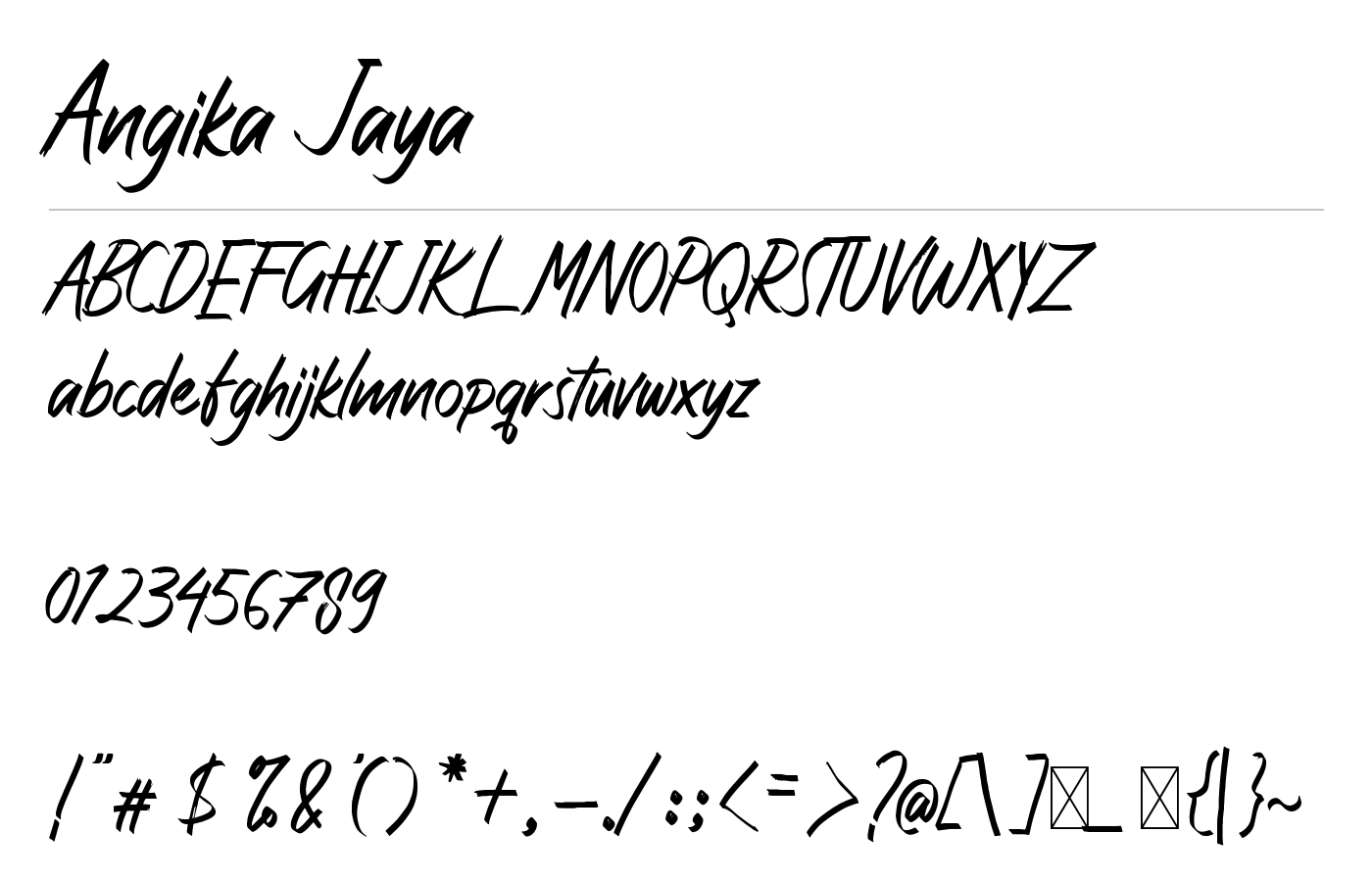
Angika Jaya is a lively and expressive script font that mimics natural handwriting with its sharp, slightly irregular strokes and medium contrast. It conveys an energetic, informal personality, making it great for creative projects, personal branding, and headlines that need a dynamic, human touch. Its casual yet distinctive style works well where a bold, artistic flair is desired, especially in logos, posters, and invitations.
Angika Jaya Font
About Angika Jaya Font
| Font family | Angika Jaya Font |